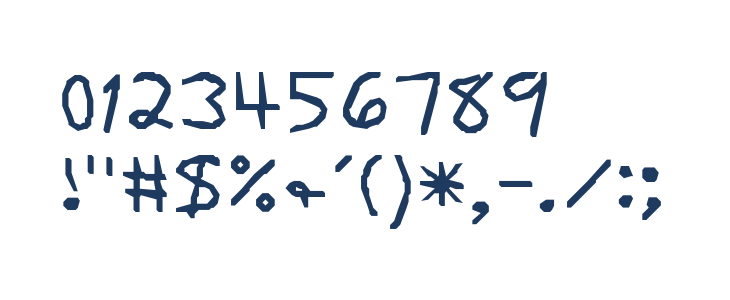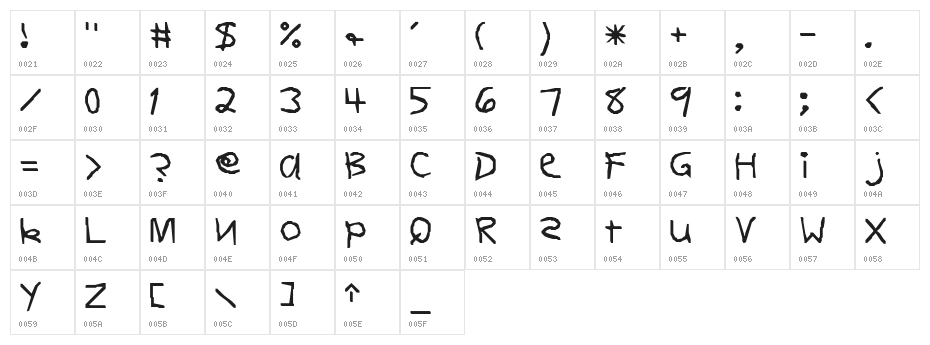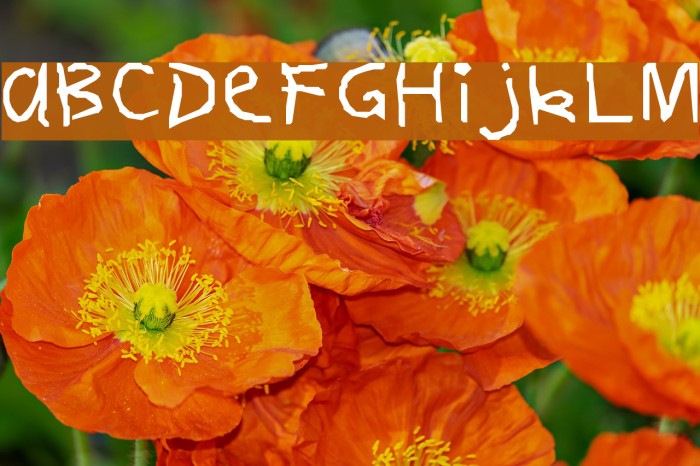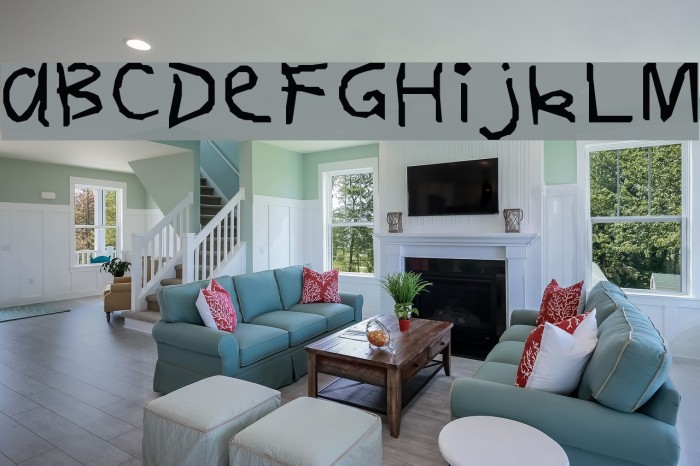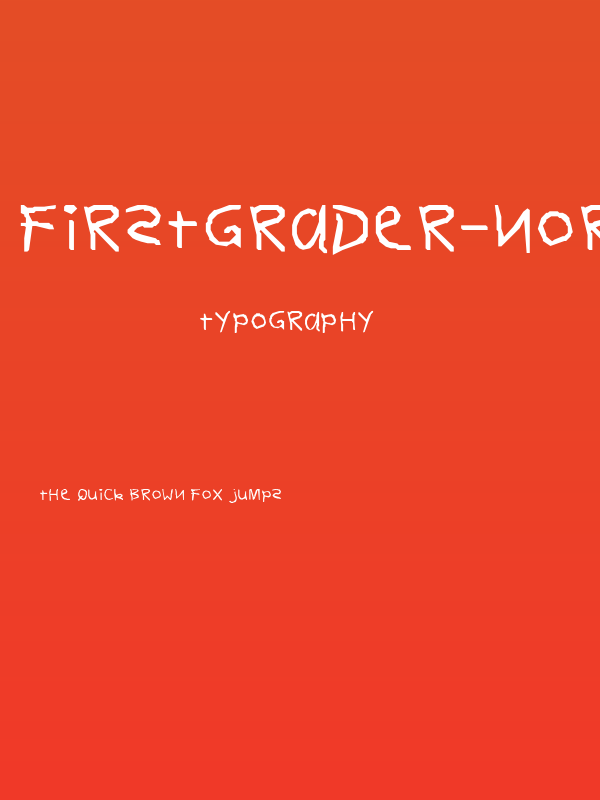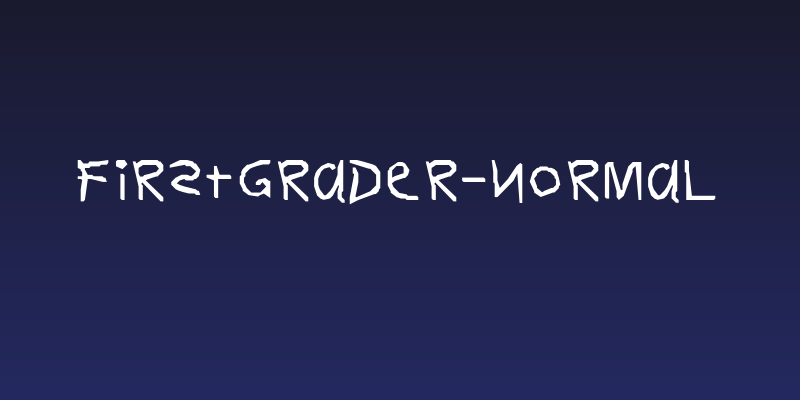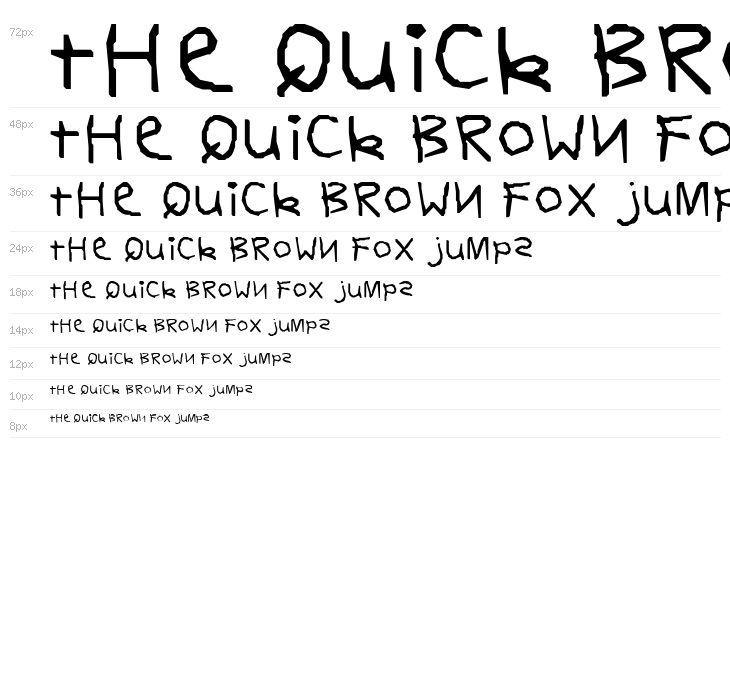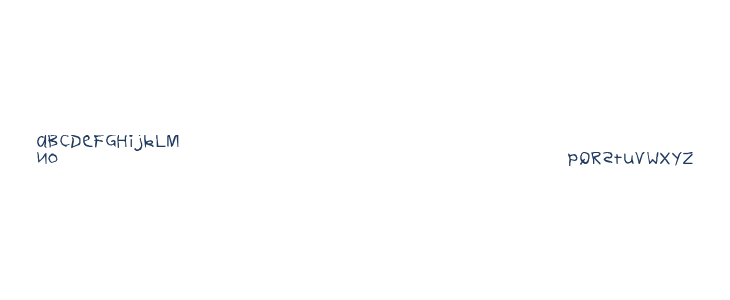
FirstGrader-Normal Font
FirstGrader-Normal Description
This font embodies a playful and childlike essence, reminiscent of handwriting with a crayon or marker. The characters are uneven and slightly irregular, giving it an authentic, hand-drawn feel. The strokes are bold and somewhat jagged, contributing to its informal and whimsical appearance. The font maintains a consistent thickness throughout, with minimal contrast between strokes. It captures the innocence and creativity of a child's writing, making it ideal for projects that aim to convey a sense of fun and spontaneity. The spacing between characters is relatively normal, ensuring readability while maintaining its casual style.
| Proposed Projects | Ideal for children's books, educational materials, playful branding, and creative projects that require a whimsical touch. |